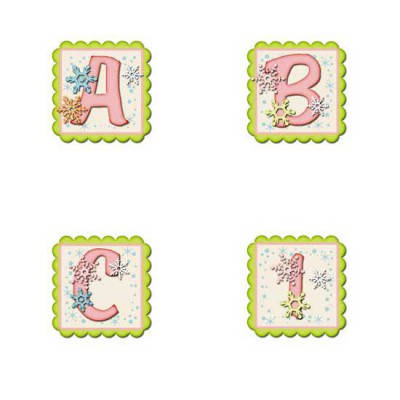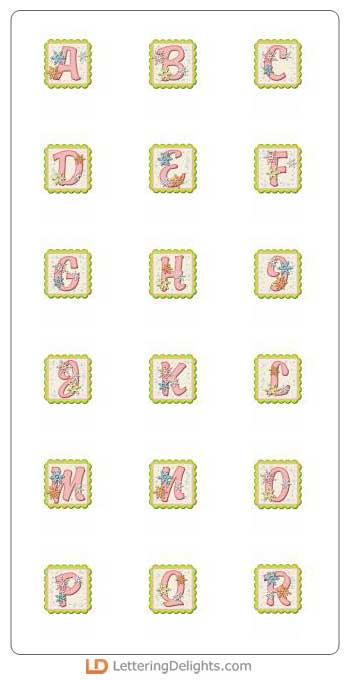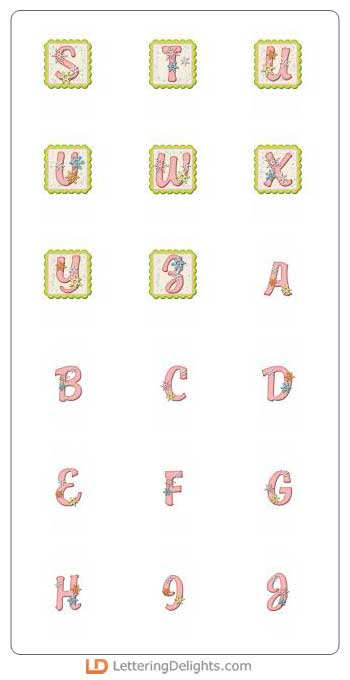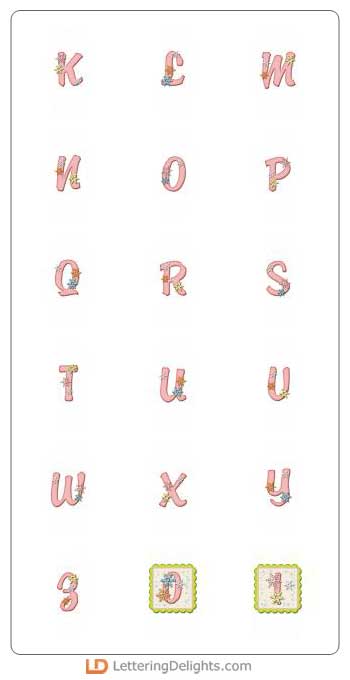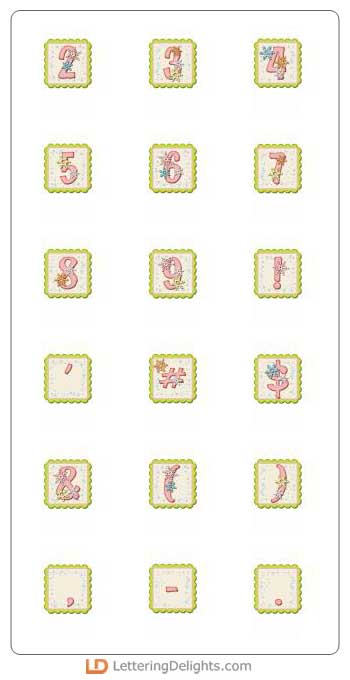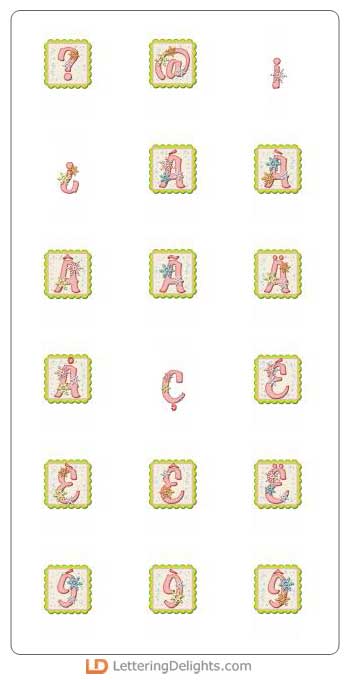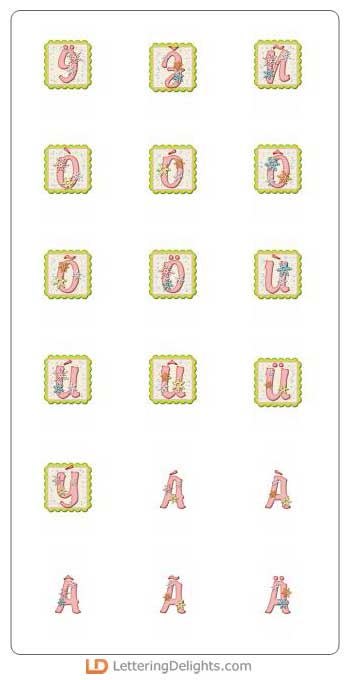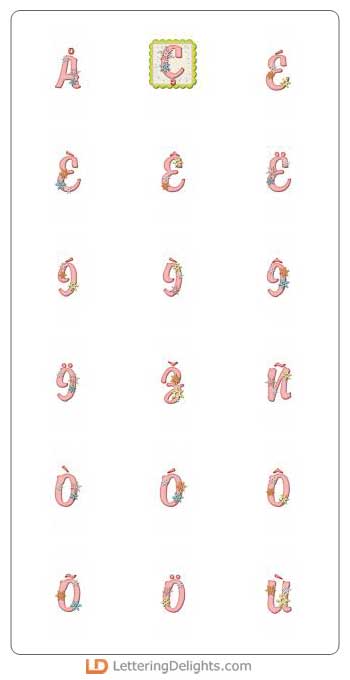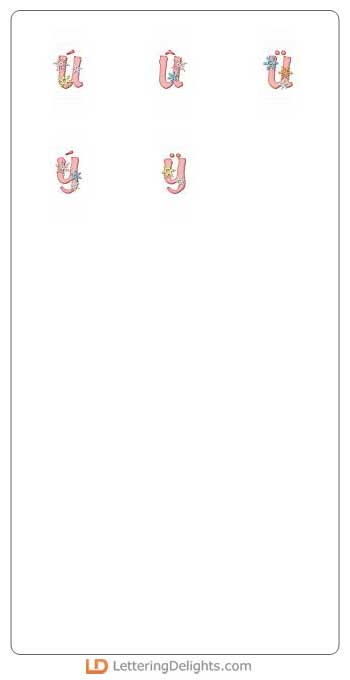
Snow Wonder alphabet is a crystallized winter alphabet set with a soft pastel color pallet and a winter themed set with snowflakes adorning each letter and number. Check out the matching graphics set.